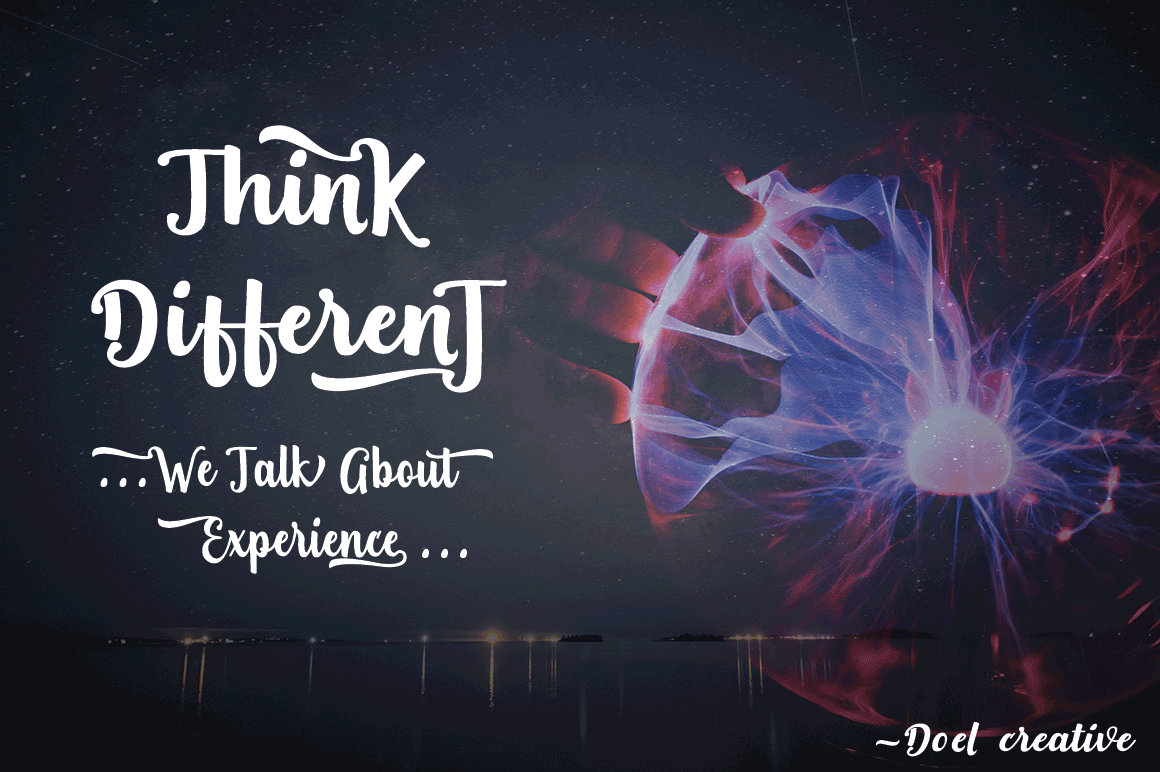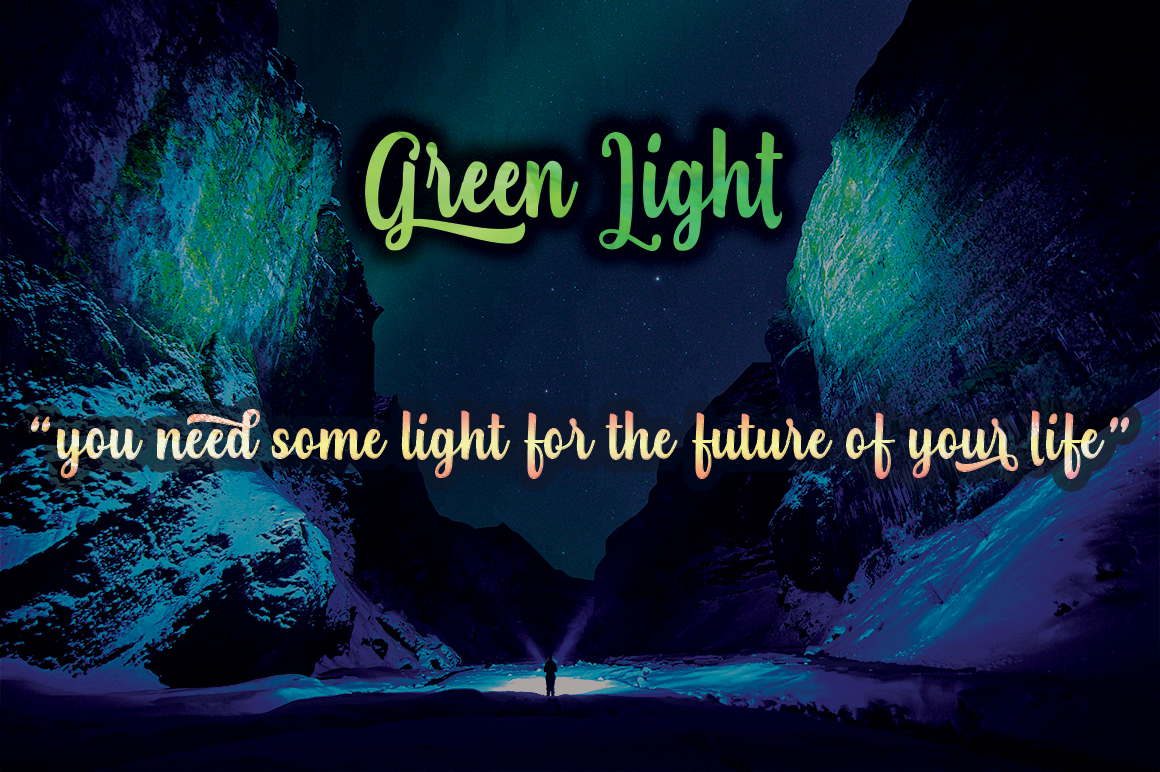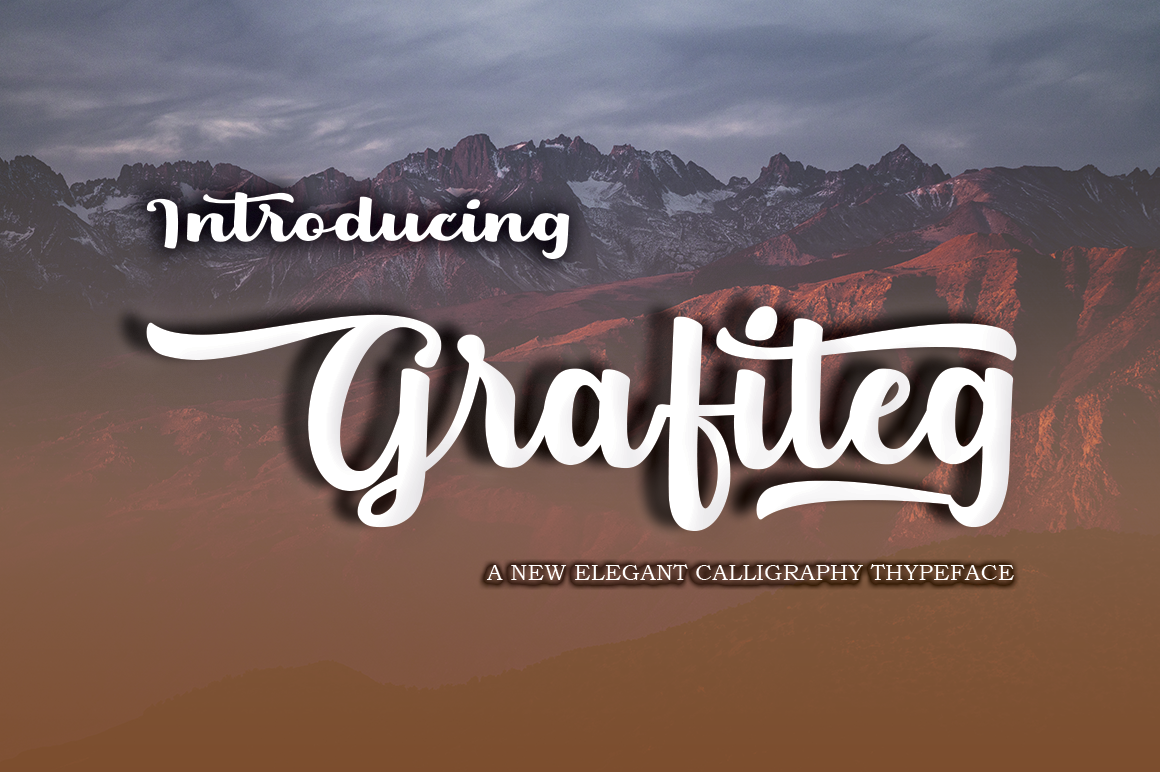
Grafiteg Script Font
Grafiteg is a font bold, another lovely elegant calligraphy typefaces, which is combining the style of classic calligraphy with an elegant style. Combines from copperplate to contemporary typeface with a unique baseline, beautiful and elegant touch. Grafiteg features 458 glyphs and alternate characters Include . Including initial and terminal letters, alternates, ligatures and multiple language support.